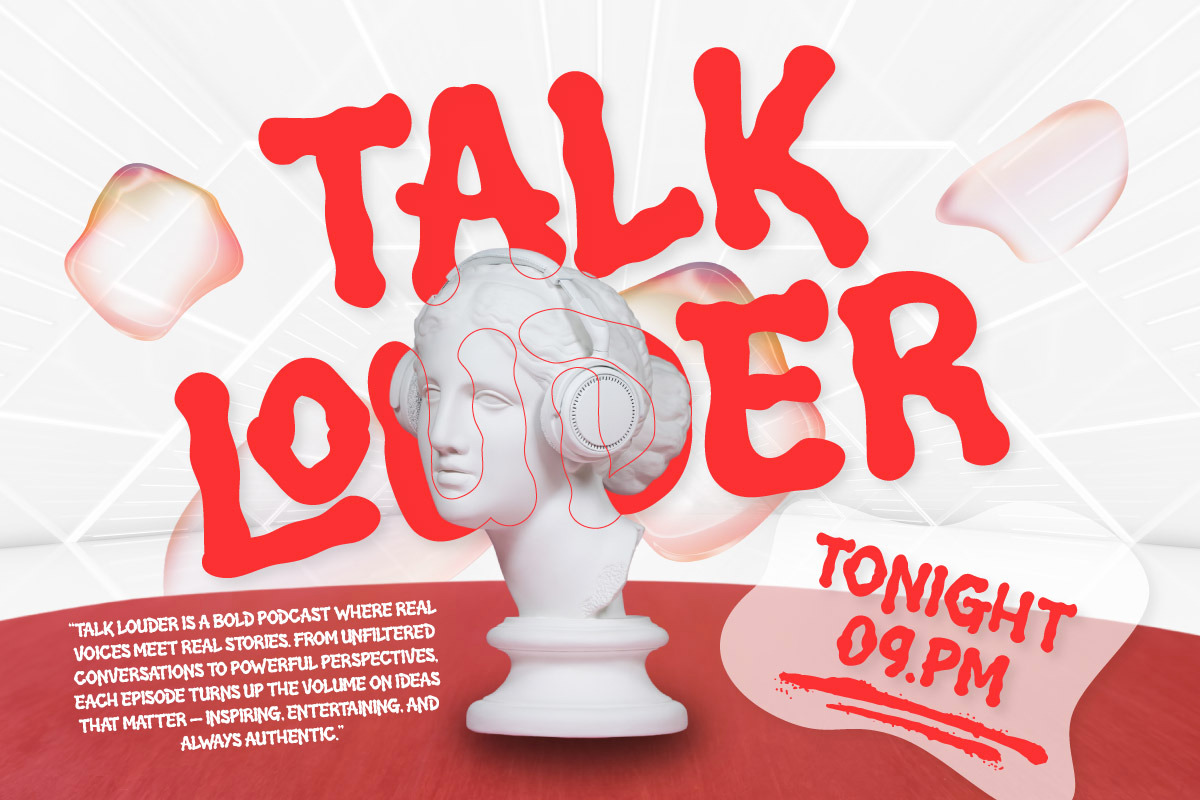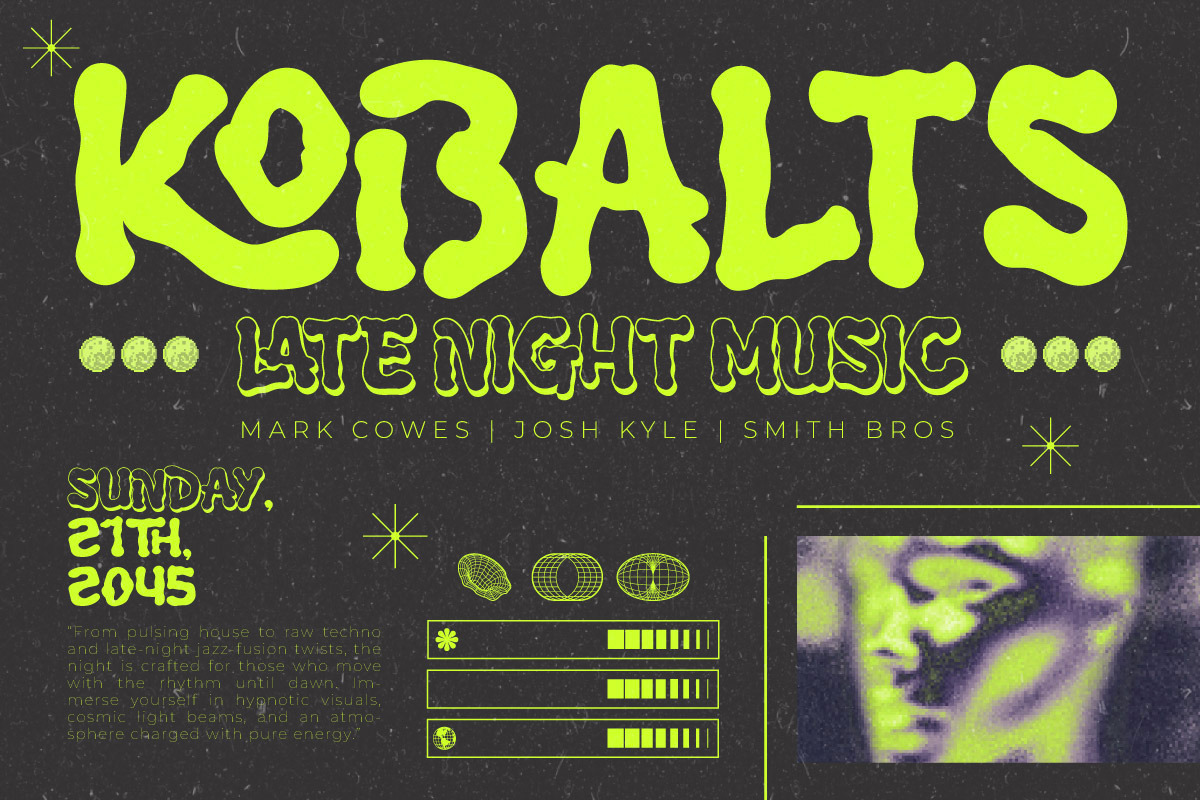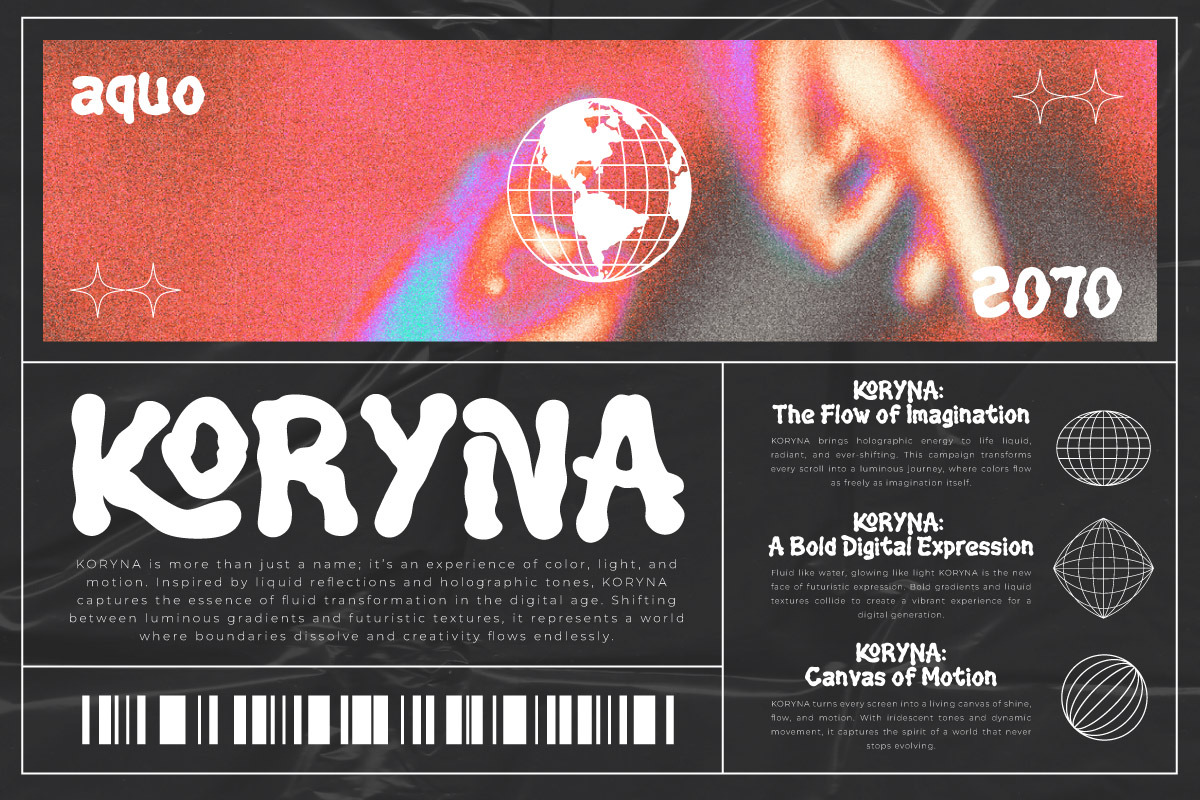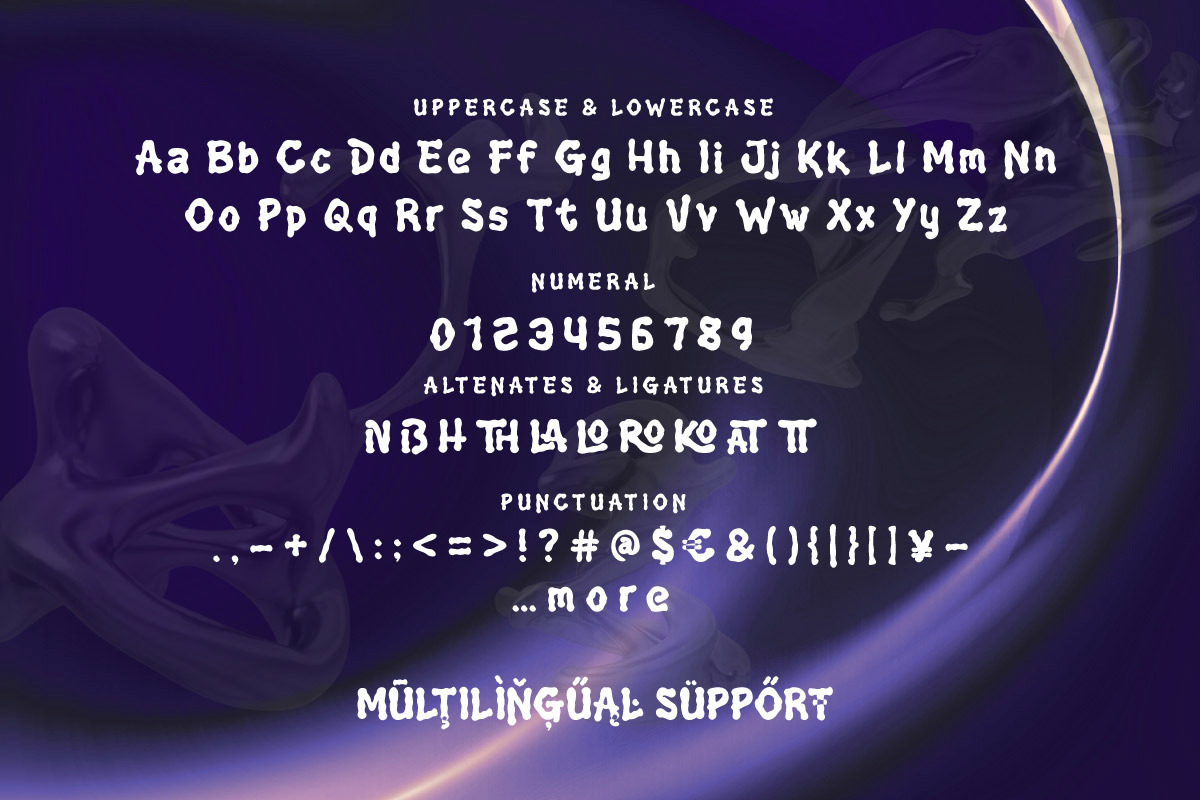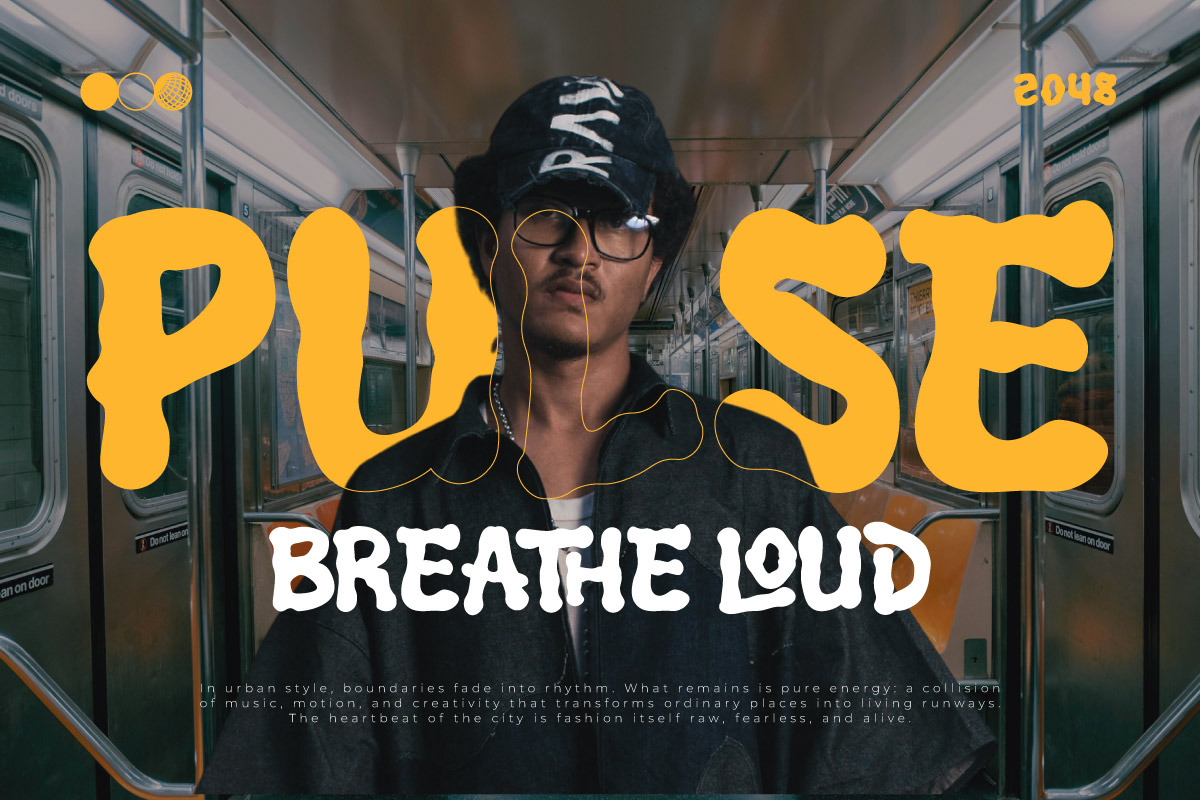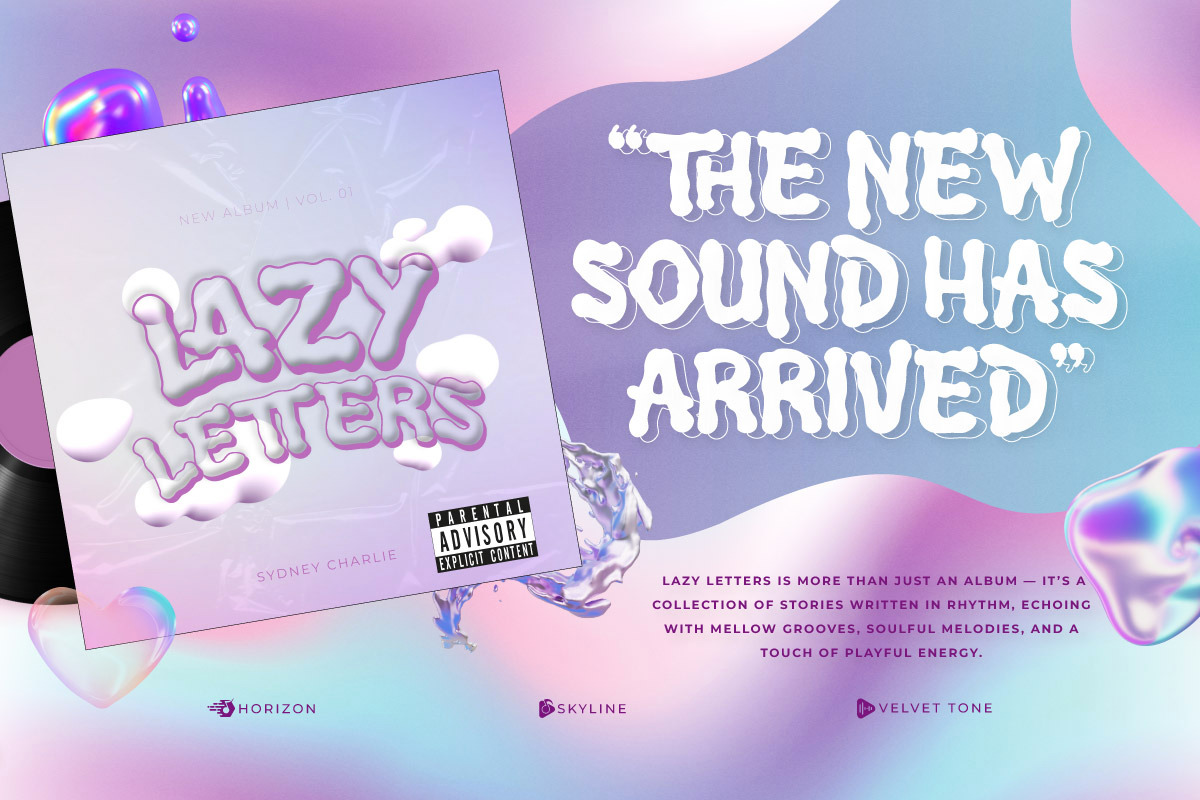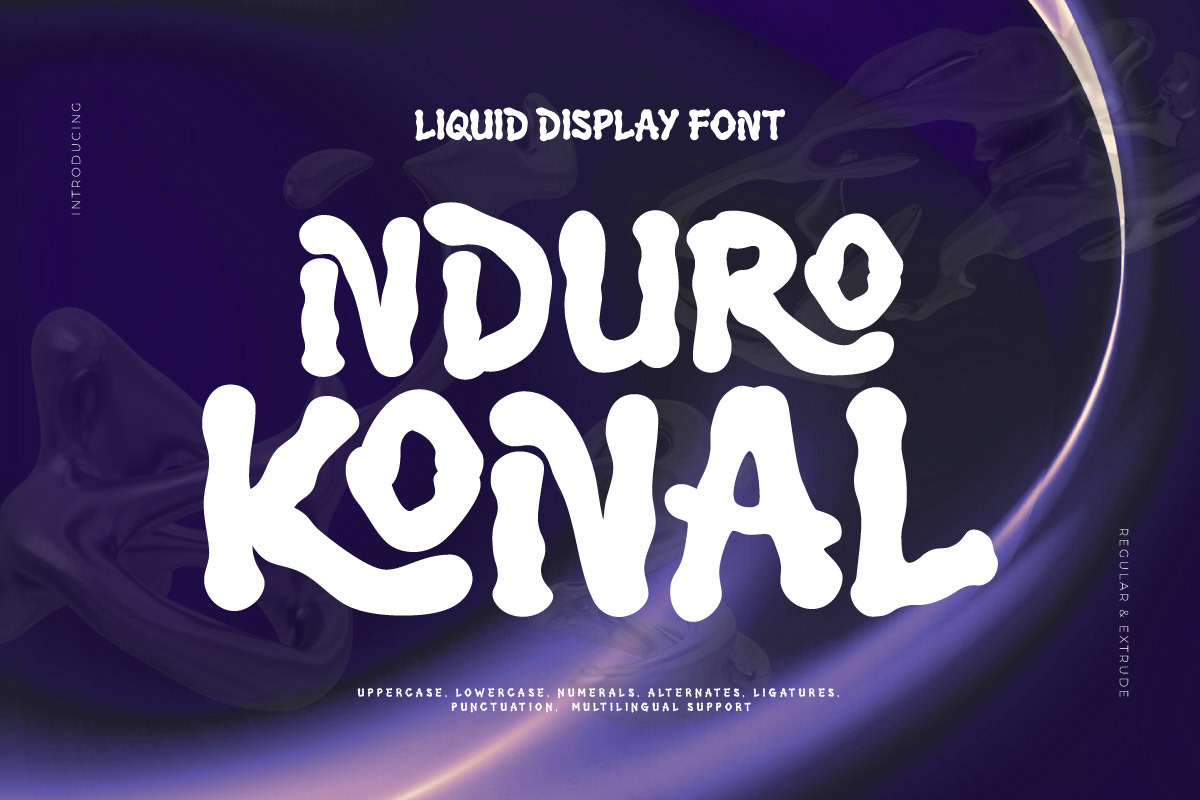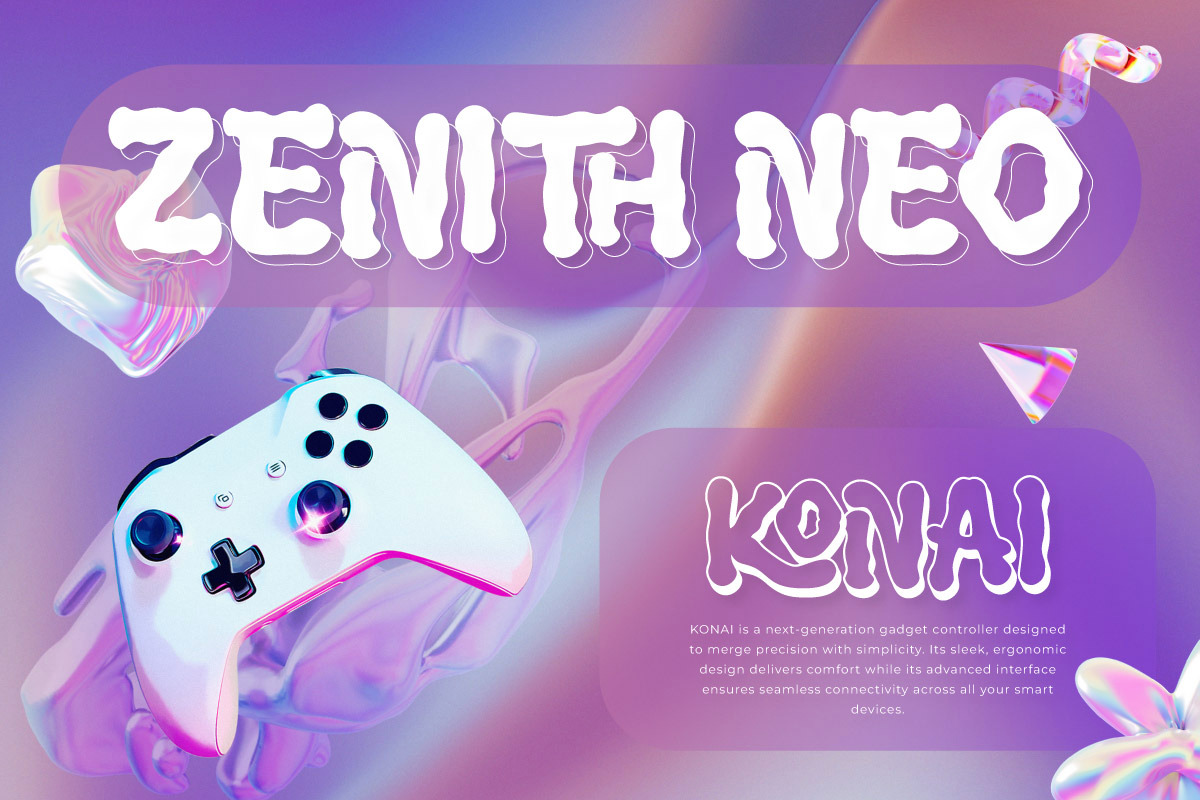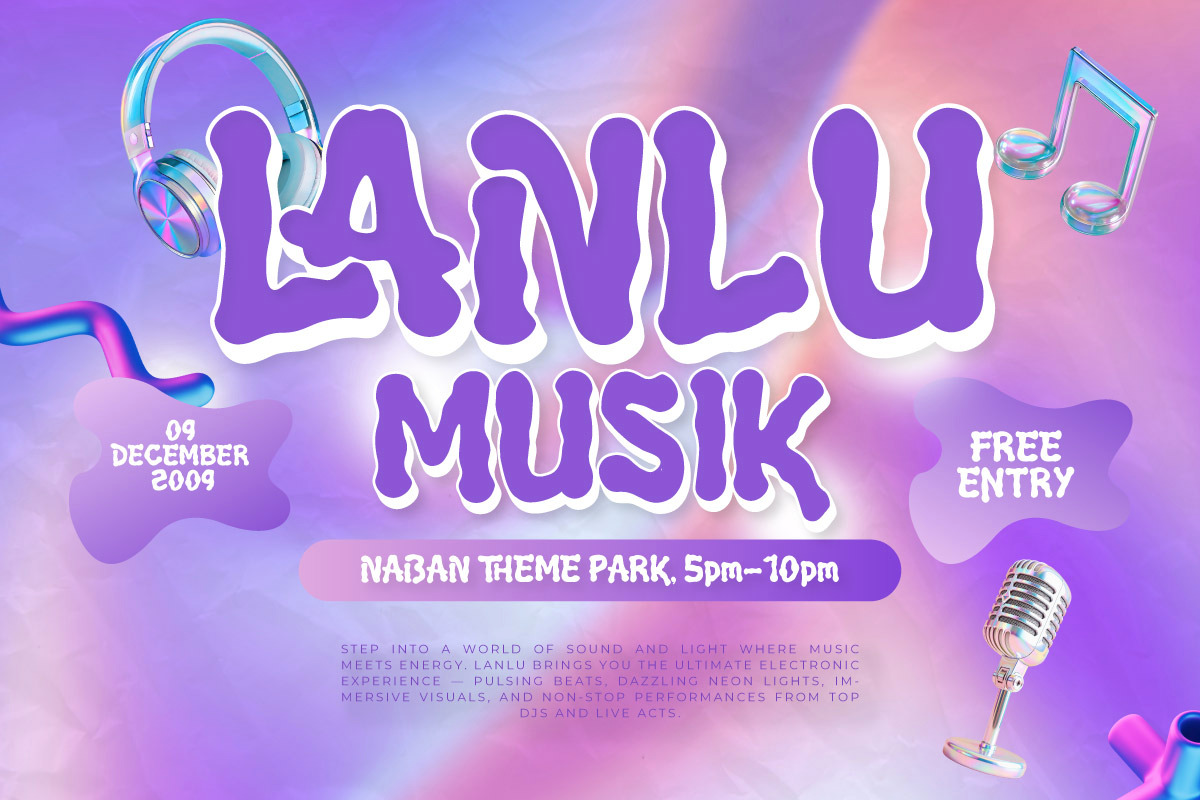
Nduro Konal - Liquid Display Font
Nduro Konal – Liquid Display Font is a bold and playful typeface inspired by fluid, melting shapes and Y2K retro aesthetics. Its organic letterforms create a strong visual impact, making it ideal for projects that demand attention and creativity. With its unique liquid style, this font brings a modern yet nostalgic vibe that works seamlessly across both digital and print media.
The font includes uppercase and lowercase letters, numerals, alternates, ligatures, punctuation, and full multilingual support. It also comes in Regular and Extrude styles, offering flexibility for layered designs, 3D effects, and dynamic compositions. This versatility makes Nduro Konal a powerful tool for designers who want to explore bold and unconventional typography.
Perfect for music posters, album covers, festival branding, fashion and streetwear logos, social media graphics, packaging design, and magazine headlines, Nduro Konal adds character and energy to any project. If you are searching for a liquid-style display font that is expressive, versatile, and truly eye-catching, this typeface is the perfect choice to elevate your design work.
- Multilingual Support: Fully supports 85+ languages, including: Afrikaans, Albanian, Asu, Basque, Bemba, Bena, Breton, Catalan, Chiga, Cornish, Croatian, Czech, Danish, Dutch, Embu, English, Esperanto, Estonian, Filipino, Finnish, French, Friulian, Galician, Gusii, Hungarian, Indonesian, Irish, Italian, Kabuverdianu, Kalenjin, Kamba, Kikuyu, Kinyarwanda, Latvian, Lithuanian, Lower Sorbian, Luo, Luxembourgish, Luyia, Machame, Makhuwa-Meetto, Makonde, Malagasy, Maltese, Manx, Meru, Morisyen, North Ndebele, Norwegian Bokmål, Norwegian Nynorsk, Nyankole, Oromo, Polish, Portuguese, Quechua, Romanian, Romansh, Rombo, Rundi, Rwa, Samburu, Sango, Sangu, Scottish Gaelic, Sena, Serbian, Shambala, Shona, Slovak, Slovenian, Soga, Somali, Spanish, Swahili, Swedish, Swiss German, Taita, Teso, Turkish, Upper Sorbian, Uzbek (Latin), Volapük, Vunjo, Walser, Zulu.